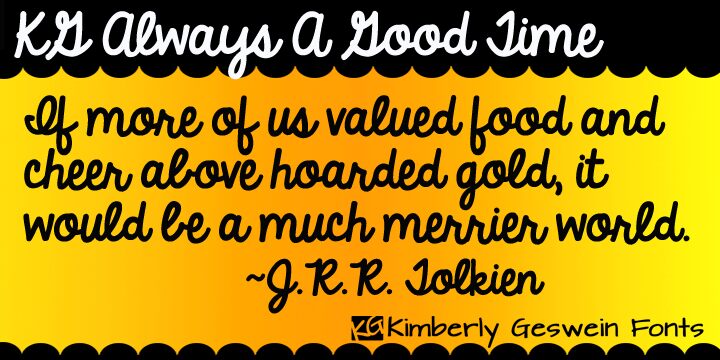
KG Always a Good Time by Kimberly Geswein is a free school handwriting font with thick, rounded strokes, oversized arches, and a lively classroom manner. Its large loops and uneven letter heights keep the writing informal.
It can give a handmade title-card role to children's publishing, classroom posters, and family event graphics, because the broad letters resemble upbeat notes written quickly on a whiteboard. The font is especially convincing for educational branding and activity materials, where its loose connections and buoyant shapes can become part of the friendly schoolroom theme.